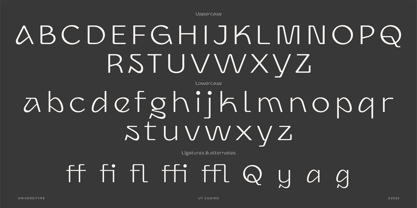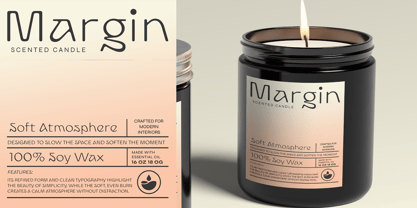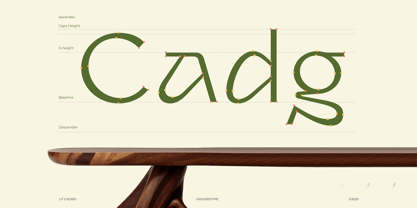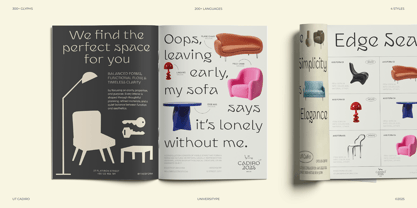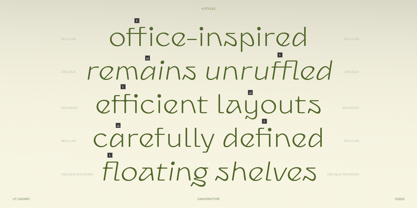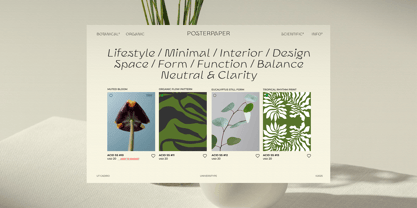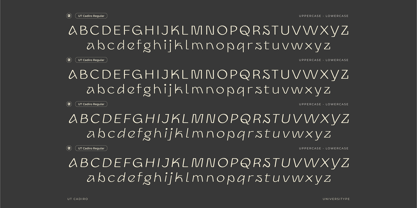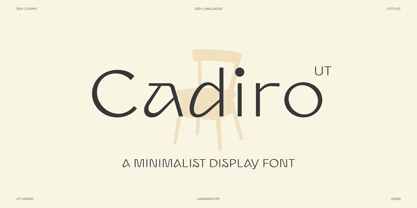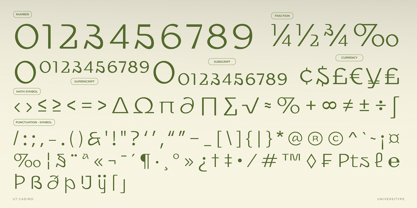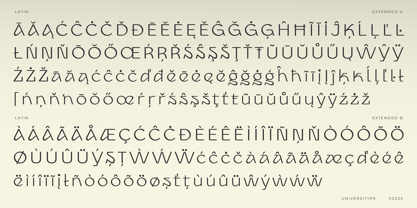
UT Cadiro
by Universitype
The UT Cadiro Font Family was designed by Muh. Aswar, Andi Syahdang and published by Universitype. UT Cadiro contains 4 styles and family package options. More about this family
Cadiro is a minimalist display typeface built with soft geometry and a warm, composed presence. Its rounded details and calm proportions create a clean visual rhythm that feels natural in modern spaces. Designed for clarity and atmosphere, Cadiro works beautifully in layouts that value balance, white space, and thoughtful design. Font Styles Regular Rounded Oblique Key Features Minimalist display typeface Soft geometric construction Rounded terminals for a warm, modern feel Clean rhythm suited for large-scale typography 4 consistent styles for flexible layouts 400+ glyphs Multilingual support
Designers: Muh. Aswar, Andi Syahdang
Foundry: Universitype